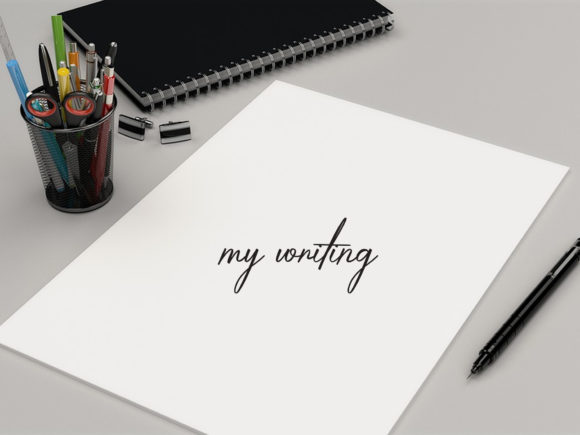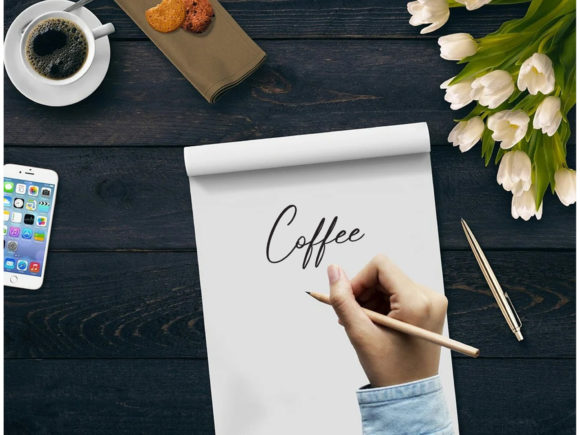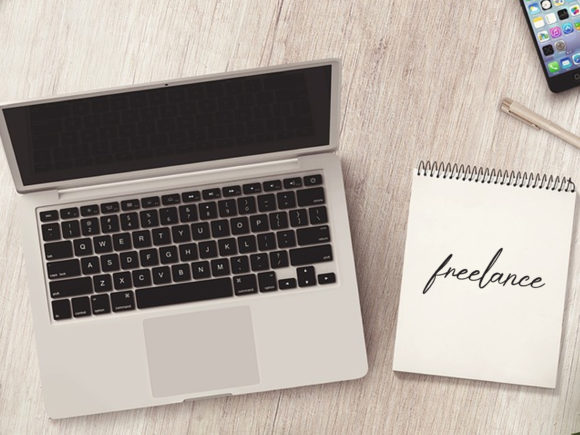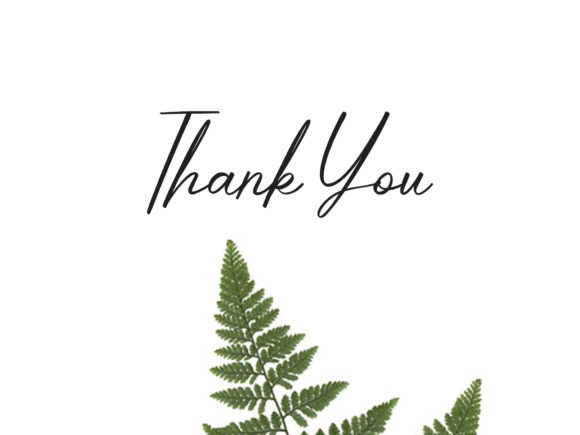
Dandy Sinta Font: Elevate Your Designs with a Delicate Handwritten Touch
In the world of typography, a font can make or break a design. For designers and crafters looking to add a touch of elegance and uniqueness to their projects, the Dandy Sinta font is an excellent choice. This delicate handwritten font is carefully crafted to produce cool and distinctive designs, making it perfect for a variety of applications.
What is Dandy Sinta Font?
Dandy Sinta is a beautiful, hand-crafted font that exudes a sense of refinement and sophistication. Its delicate strokes and elegant letterforms make it an ideal choice for designs that require a personal touch. Whether you’re working on a letter, invitation, food product label, or any other project, Dandy Sinta is sure to impress.
Key Features of Dandy Sinta Font
- Delicate Handwritten Style: Dandy Sinta’s handwritten style is characterized by its gentle, flowing strokes that give it a unique and charming appearance.
- Unique Letterforms: Each letter in the Dandy Sinta font is carefully crafted to ensure that it stands out from the rest, making it perfect for designs that require a personal touch.
- Versatile: Dandy Sinta can be used for a wide range of applications, from formal invitations to food product labels, and even social media graphics.
- Easily Readable: Despite its delicate nature, Dandy Sinta is highly readable, making it suitable for both digital and print designs.
Use Cases for Dandy Sinta Font
Dandy Sinta’s versatility makes it suitable for various design projects. Here are some use cases where this font truly shines:
- Wedding Invitations: Add a touch of romance and elegance to your wedding invitations with Dandy Sinta.
- Food Product Labels: Give your food products a personal touch with Dandy Sinta’s delicate and charming letterforms.
- Social Media Graphics: Use Dandy Sinta to create eye-catching social media graphics that stand out from the crowd.
- Personal Letters: Add a touch of sophistication to your personal letters with Dandy Sinta’s elegant handwritten style.
Tips for Using Dandy Sinta Font
To get the most out of Dandy Sinta, here are some tips to keep in mind:
- Pair with Other Fonts: Experiment with pairing Dandy Sinta with other fonts to create a unique and visually appealing design.
- Adjust Font Size: Adjust the font size to suit your design needs, ensuring that the text is easily readable.
- Use in Combination with Images: Use Dandy Sinta in combination with images to create a stunning visual effect.
In conclusion, Dandy Sinta is a beautiful and delicate handwritten font that can elevate your designs to the next level. Its unique letterforms, versatility, and readability make it an excellent choice for designers and crafters looking to add a personal touch to their projects. Whether you’re working on a wedding invitation, food product label, or social media graphic, Dandy Sinta is sure to impress.